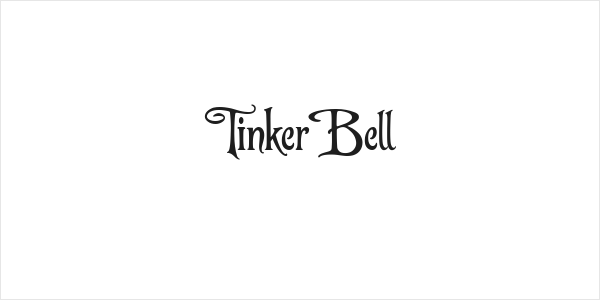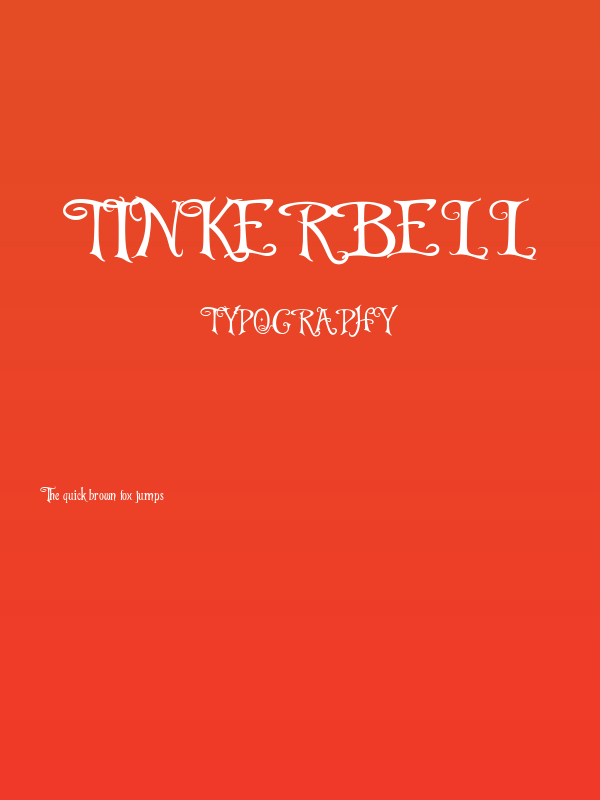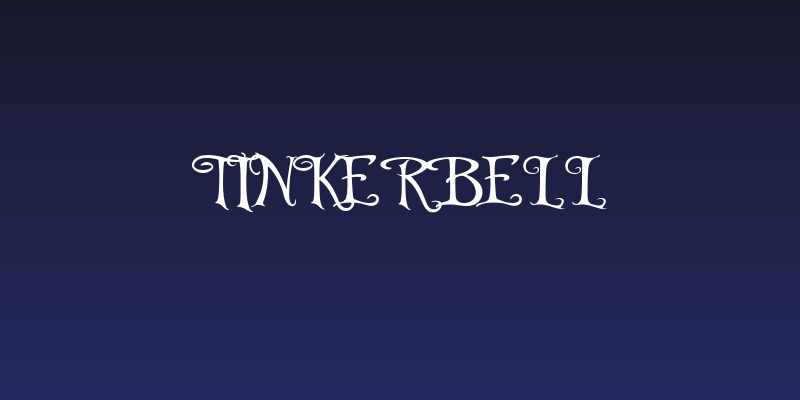
TinkerBell Font
TinkerBell Description
This whimsical and enchanting font features elegant, flowing lines with a playful twist. The uppercase letters are adorned with delicate curls and swirls, giving them a fairy-tale-like appearance. The lowercase letters maintain a consistent style, with smooth curves and a slightly elongated form. Numbers and special characters are crafted with the same attention to detail, incorporating unique flourishes that add to the font's charm. The overall design is reminiscent of a magical, storybook aesthetic, making it perfect for projects that require a touch of fantasy and creativity.
| Proposed Projects | Ideal for children's books, fantasy-themed invitations, magical event branding, and whimsical posters. |